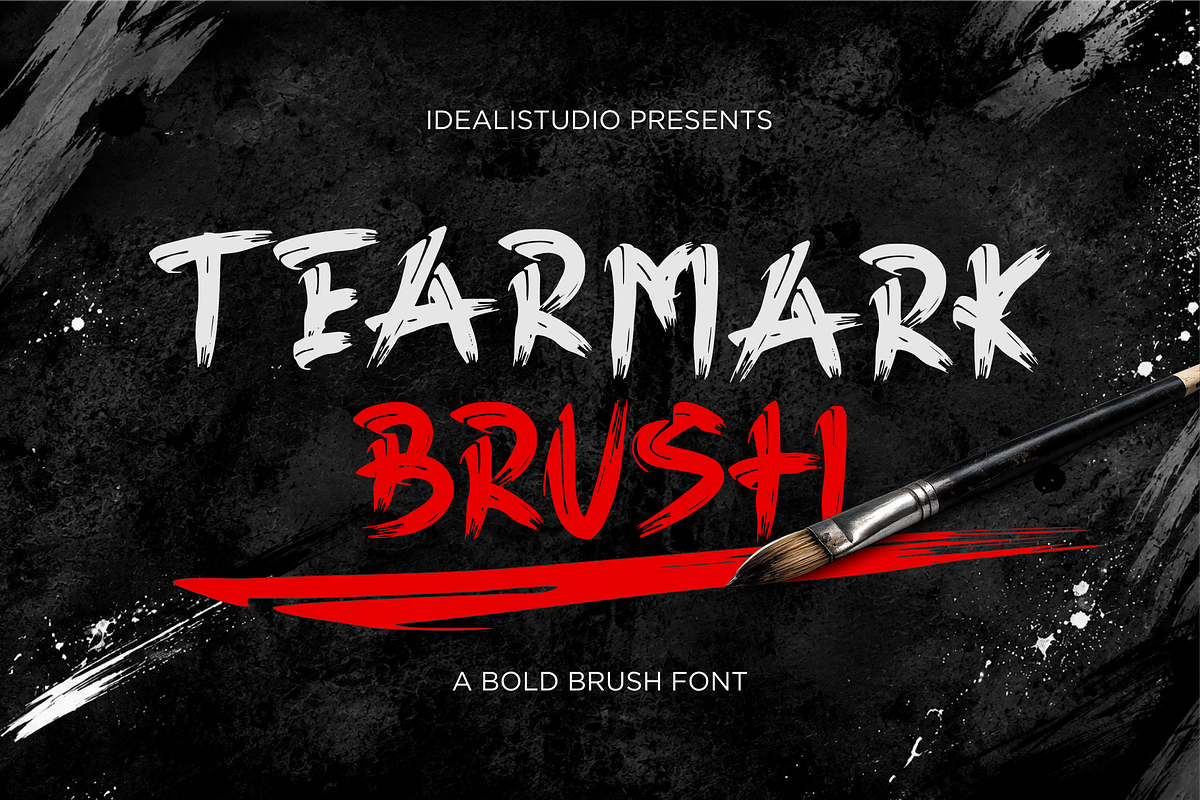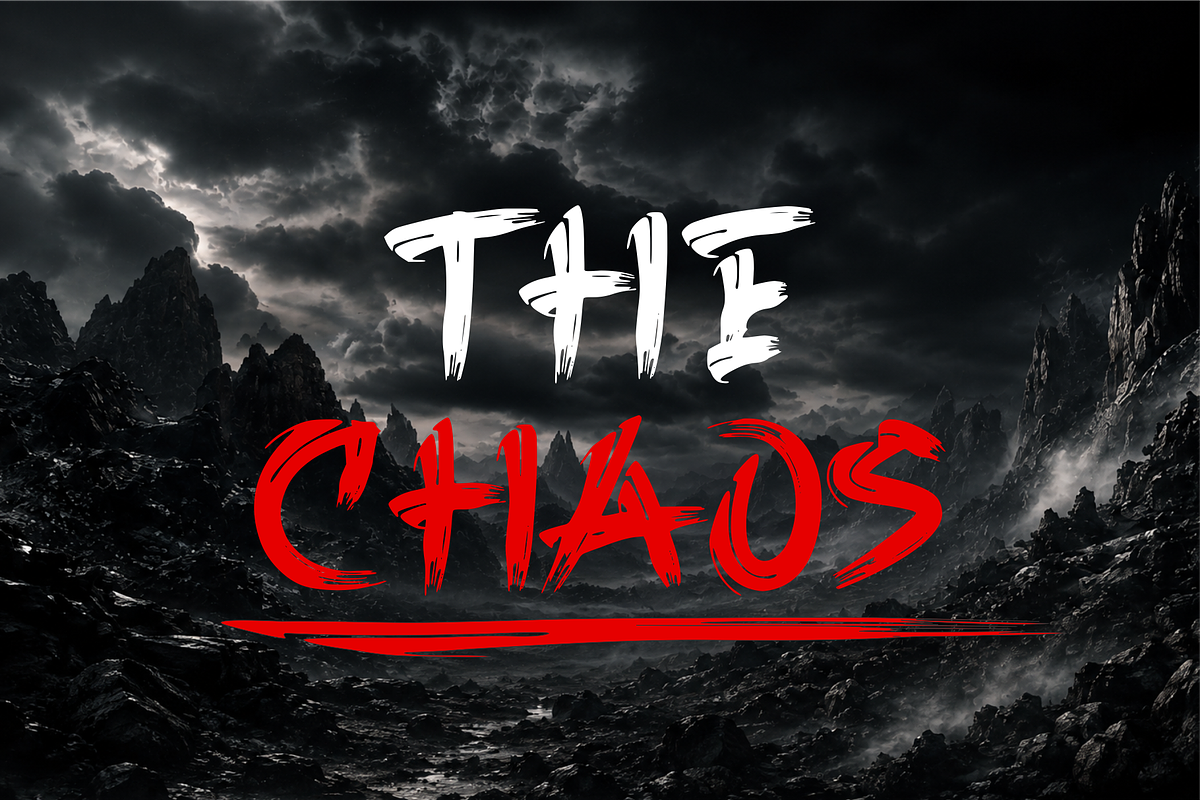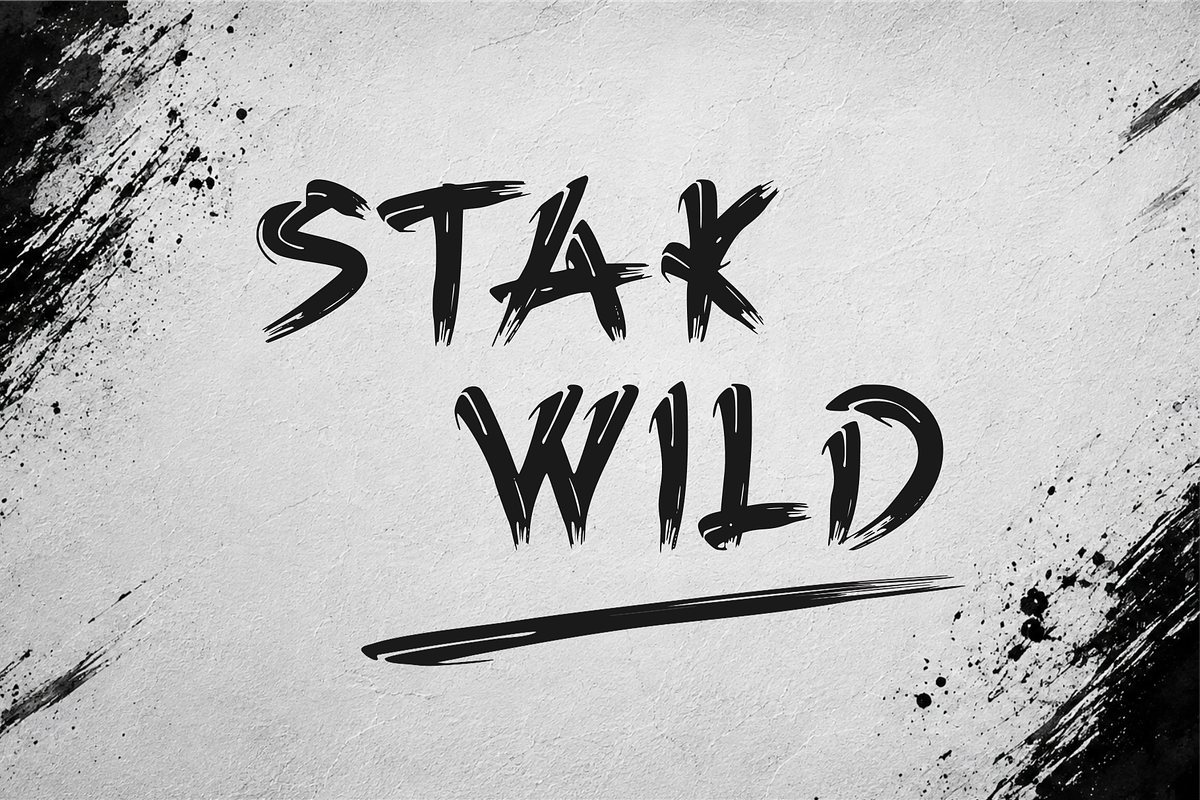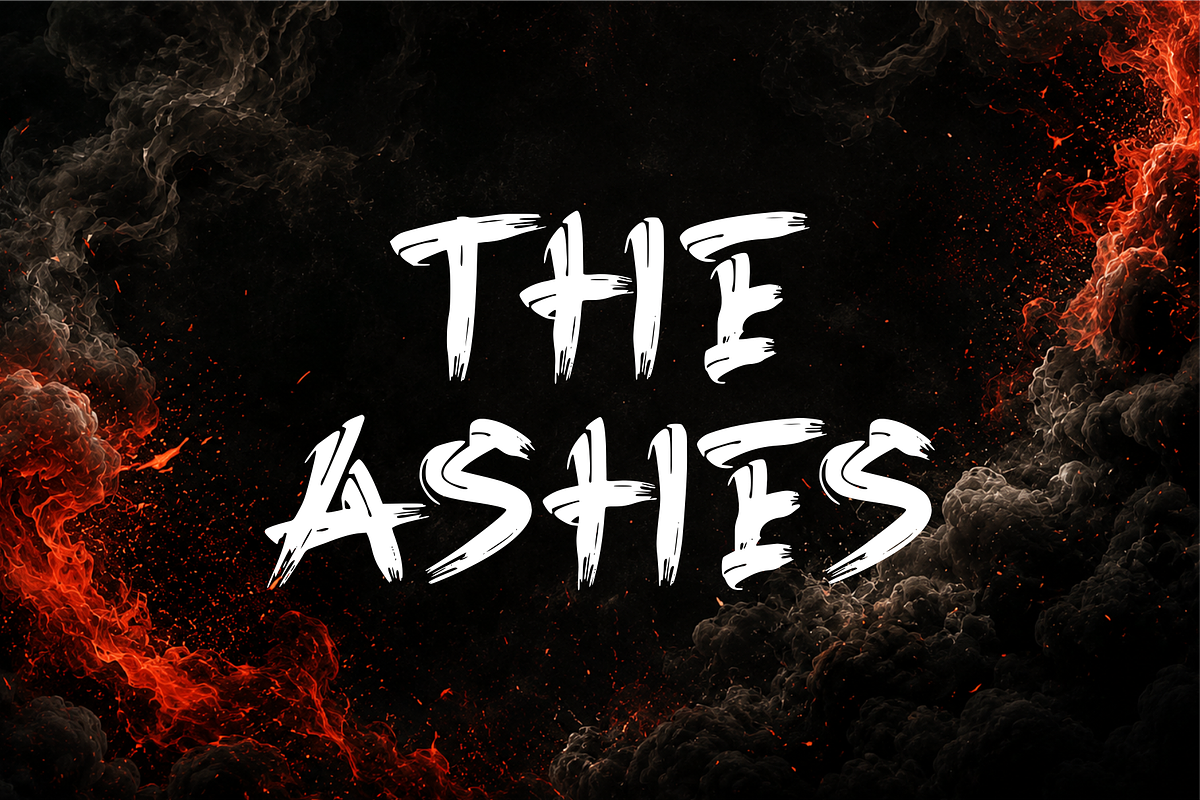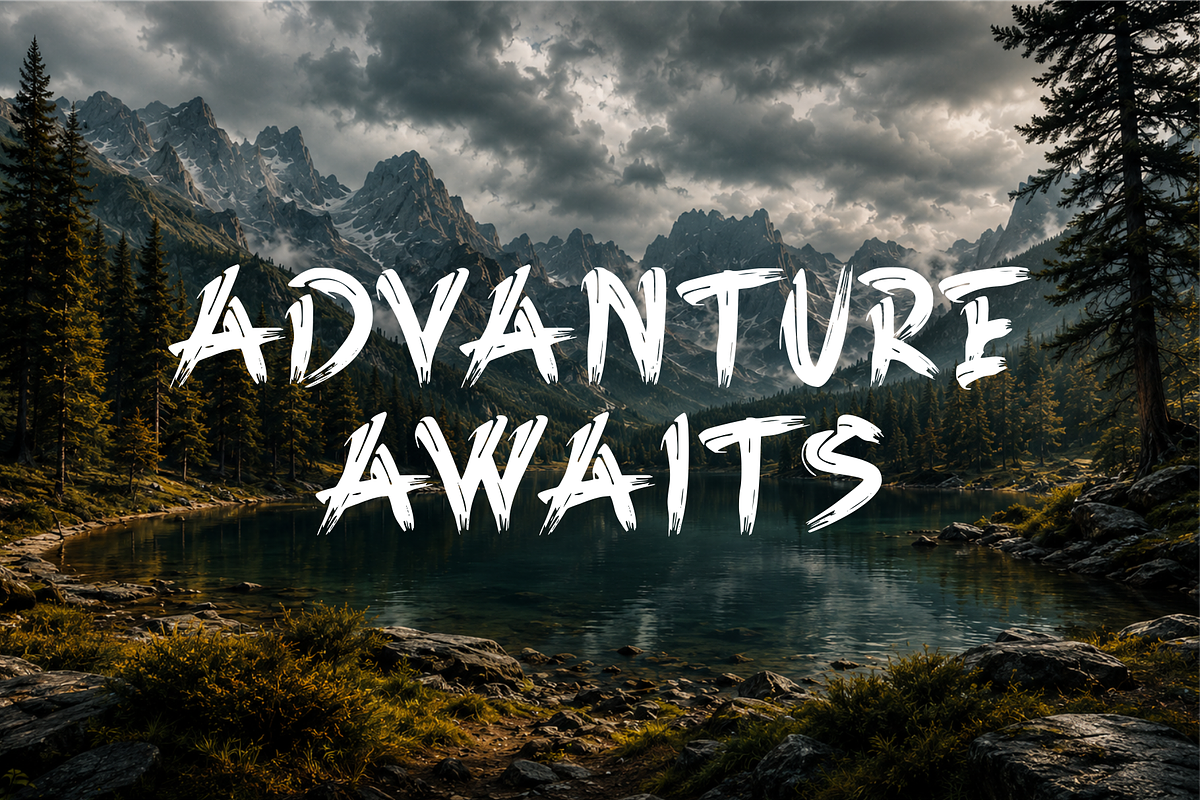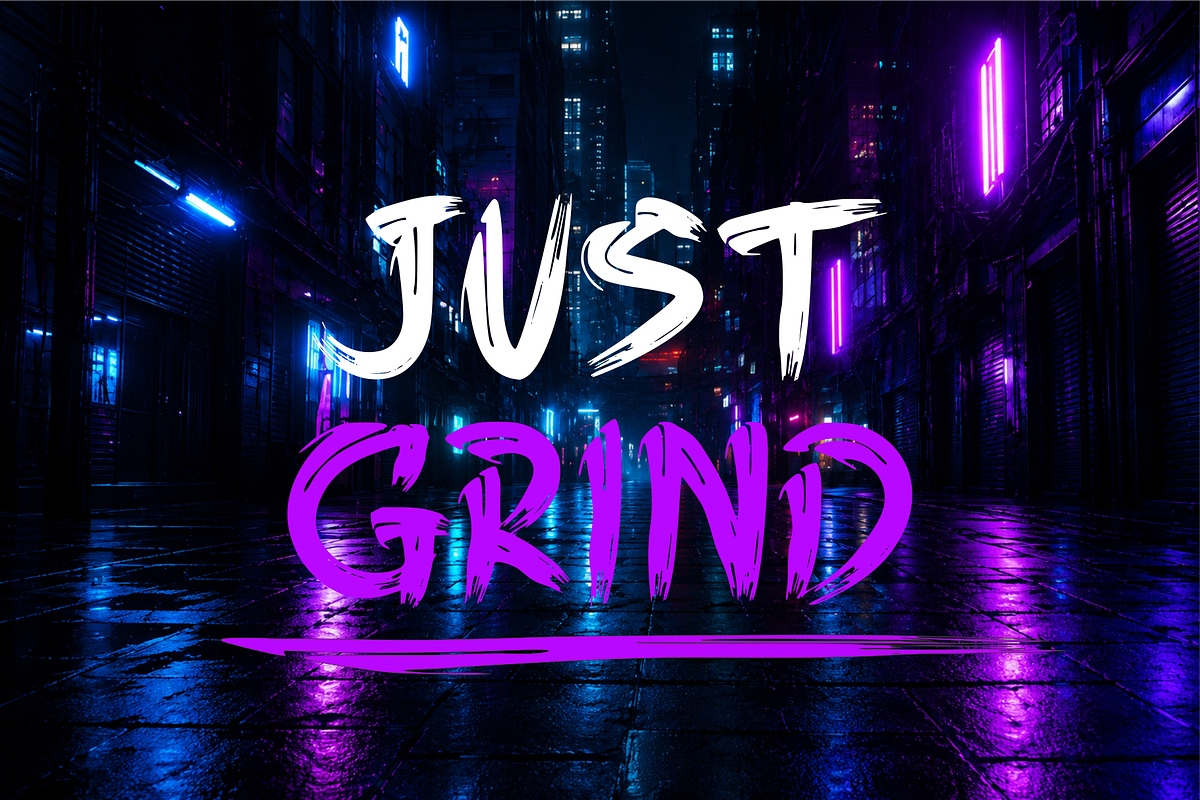
Tearmark Brush – Bold Grunge Brush
Tearmark Brush – Bold Grunge Brush Font
Tearmark Brush is a bold grunge brush font designed to deliver raw energy and expressive character to every project. Featuring rough brush strokes, distressed edges, and handcrafted details, this typeface captures the authentic feel of real paintbrush textures. Its rugged appearance makes it perfect for designs that demand a strong, rebellious, and eye-catching presence.
Whether you're creating branding, posters, album covers, apparel, social media graphics, packaging, or horror-themed artwork, Tearmark Brush adds a bold artistic touch that stands out from the crowd.
Uppercase & Lowercase Characters
Handcrafted Brush Texture
Bold & Distressed Style
Bring a fearless and handcrafted aesthetic to your next creative project with Tearmark Brush—the perfect bold grunge brush font for designers who want to make a lasting impression.